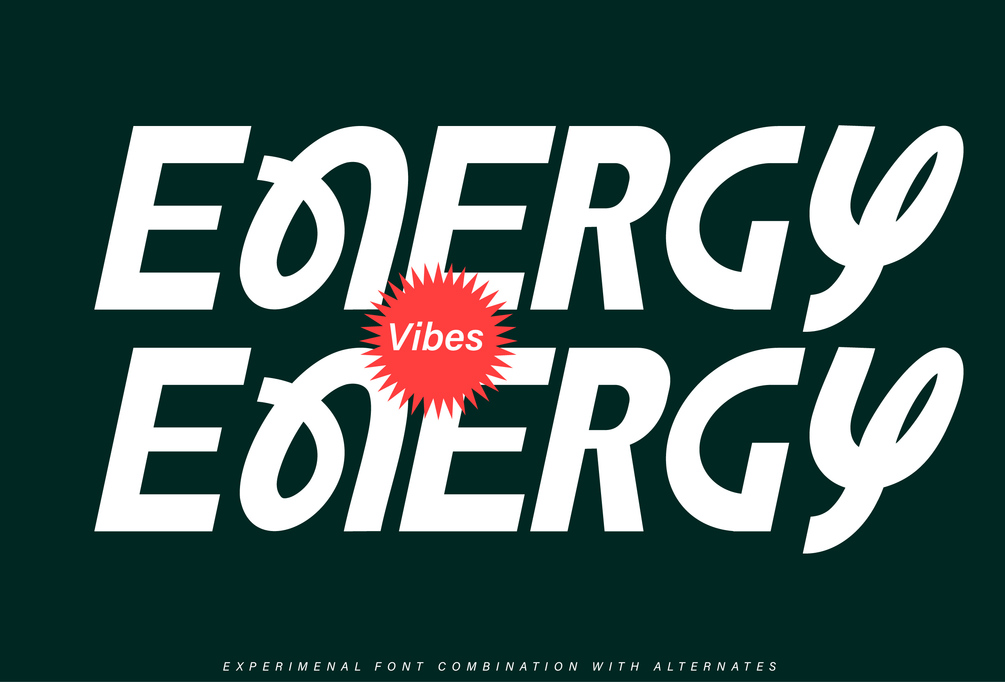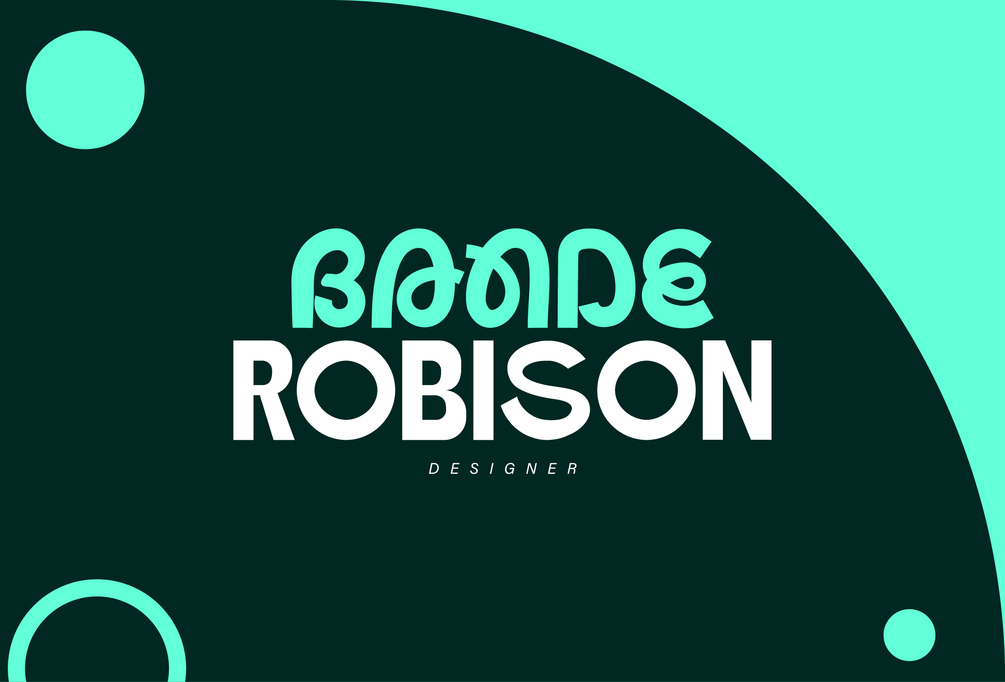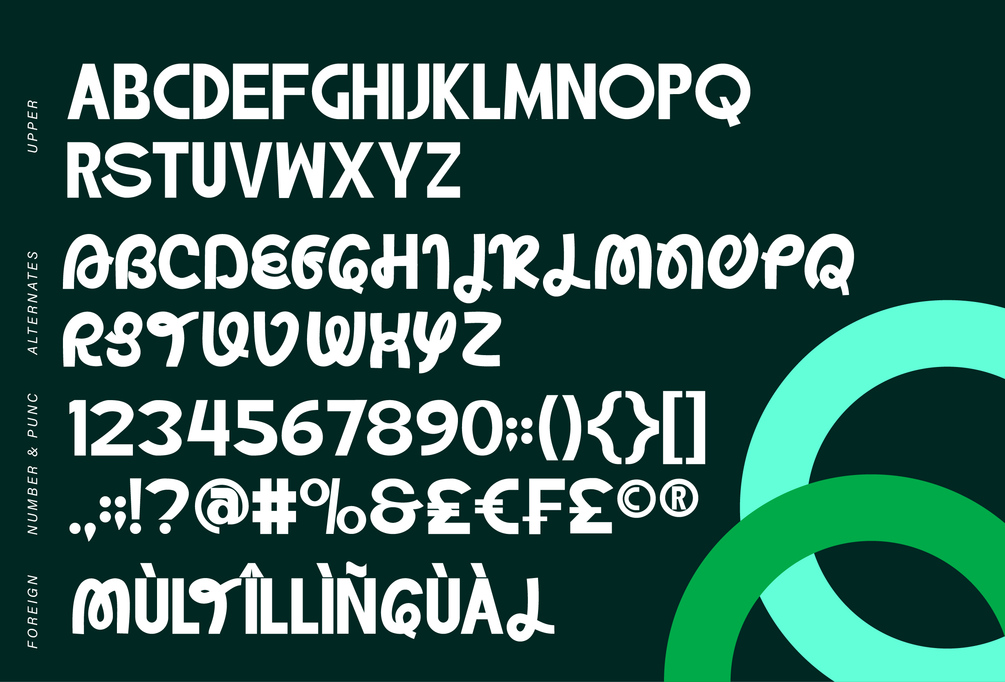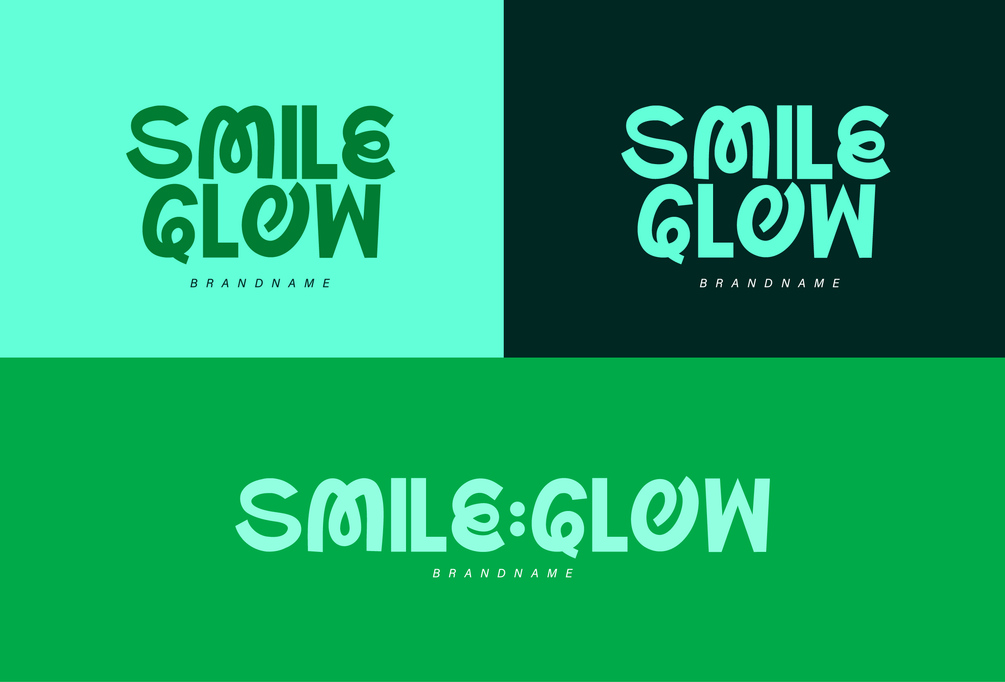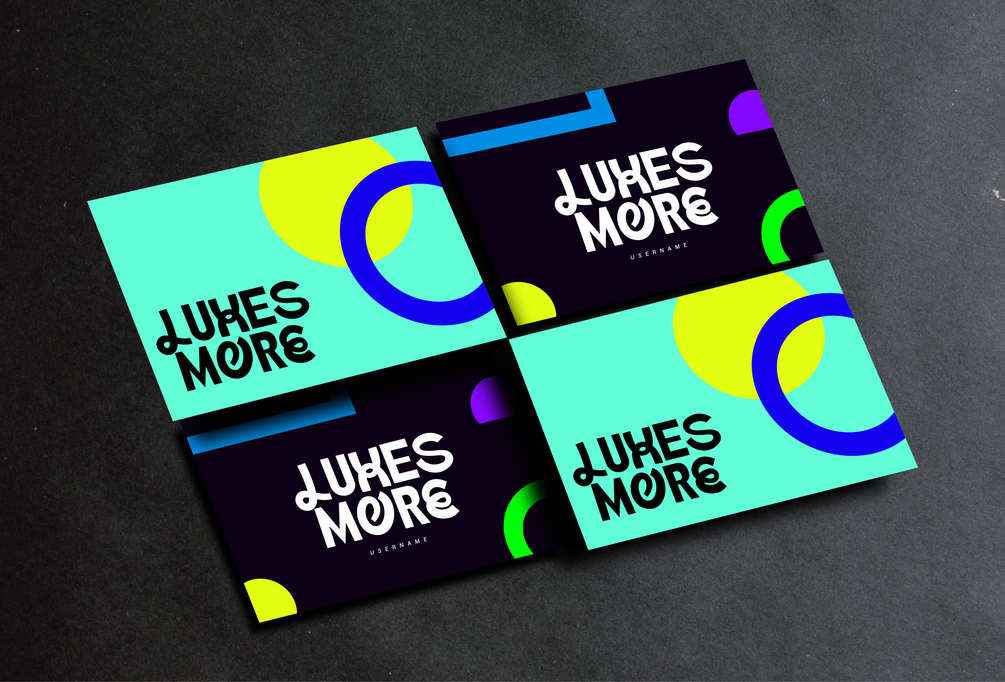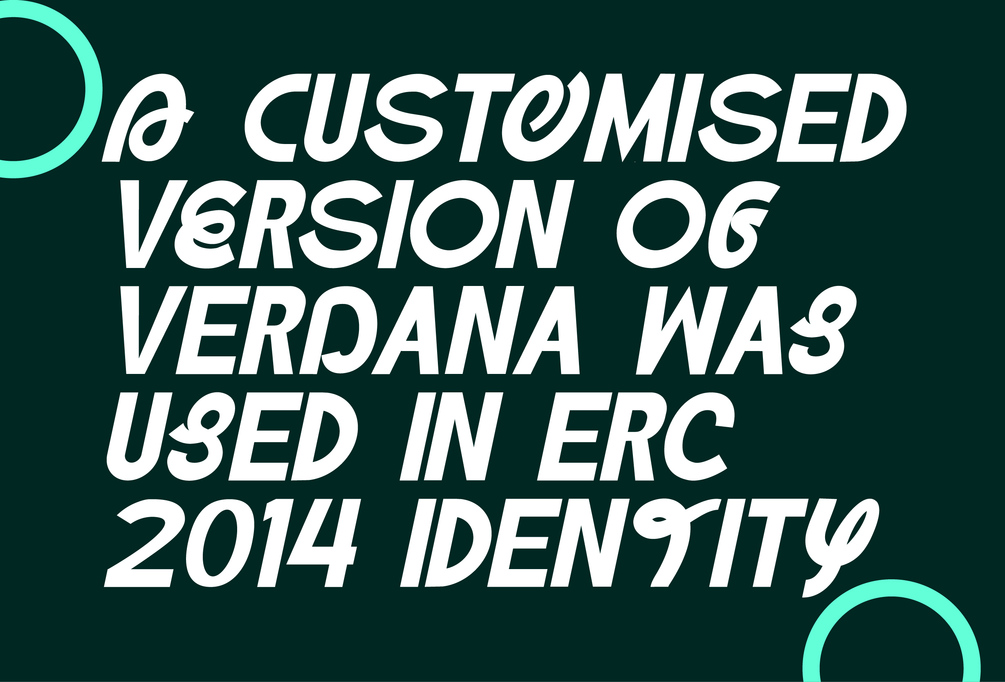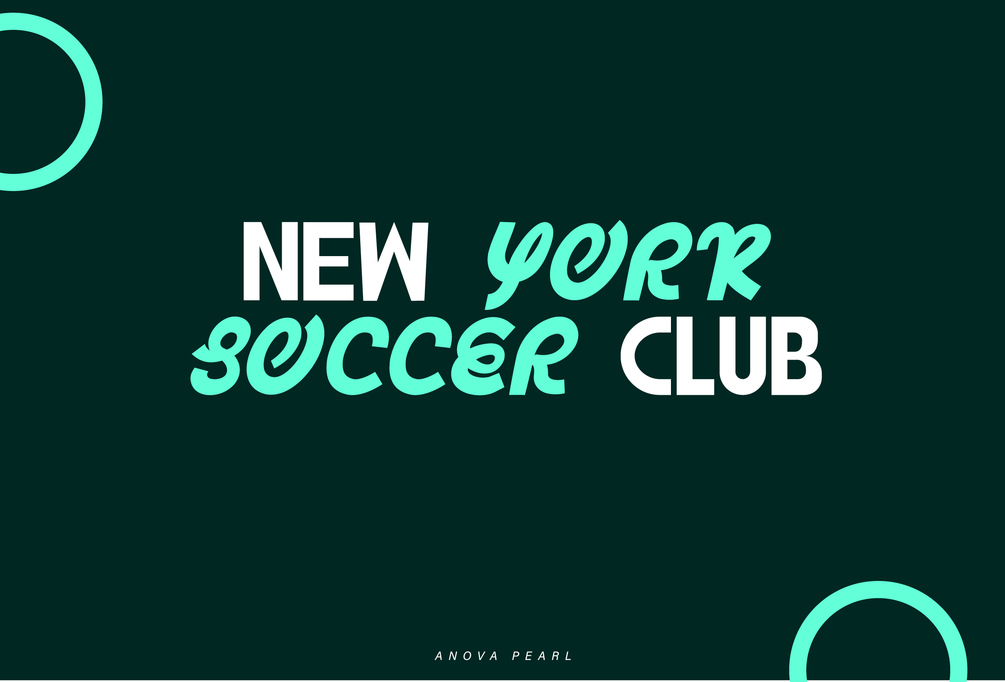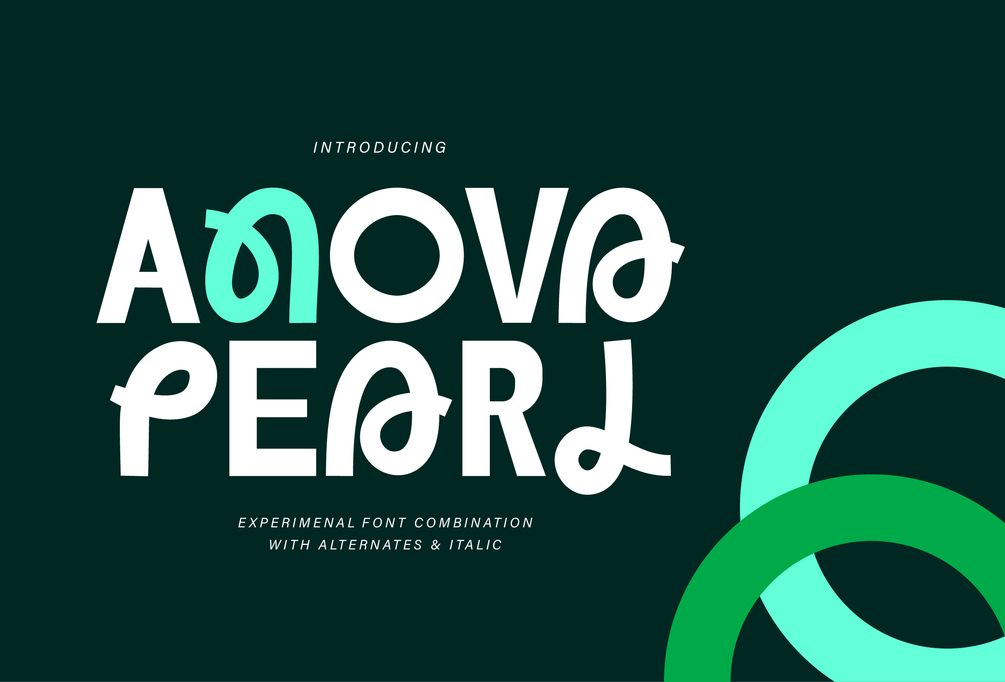
Anova Pearl - Font Experimental
Anova Pearl which has a strong design with an experimental combination. The font is a combination of two letter styles. Suitable for use in various media, book covers, posters, typography, promotions, and other digital media.
FEATURES;
• Uppercase letters and combination
• Numbers and punctuation.